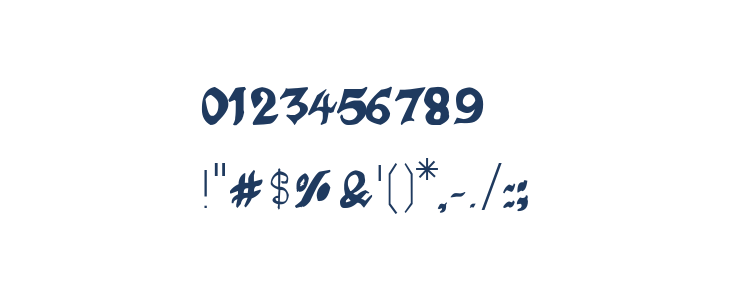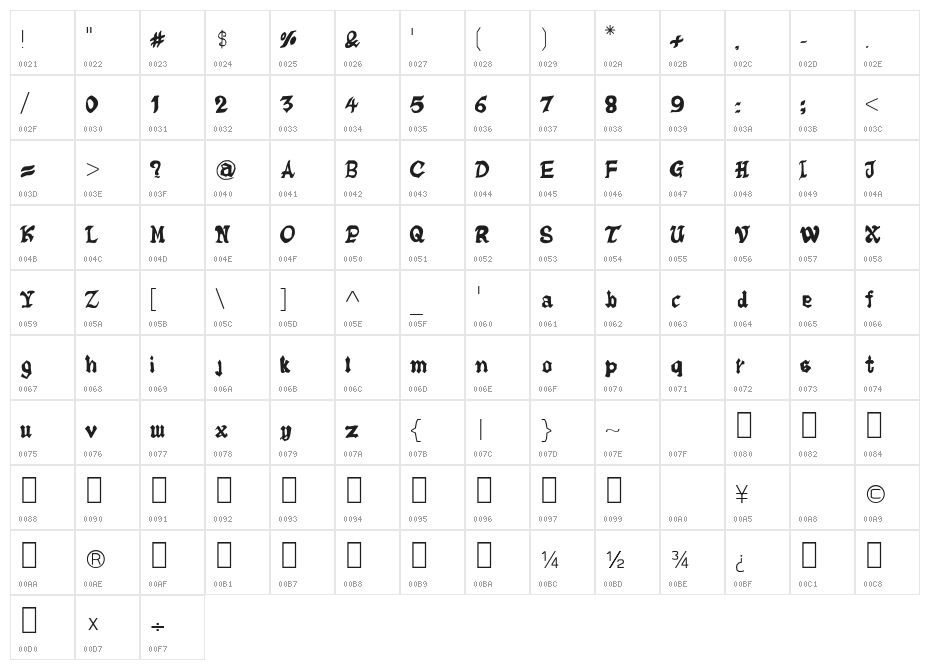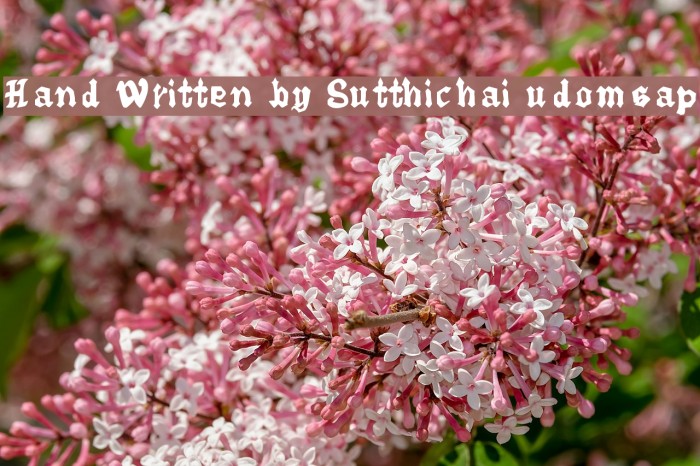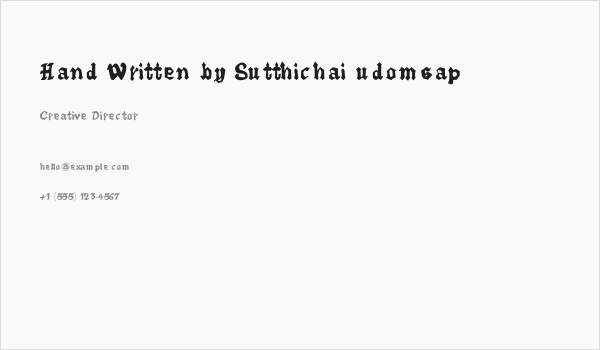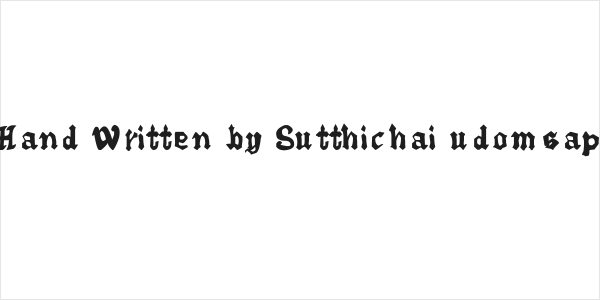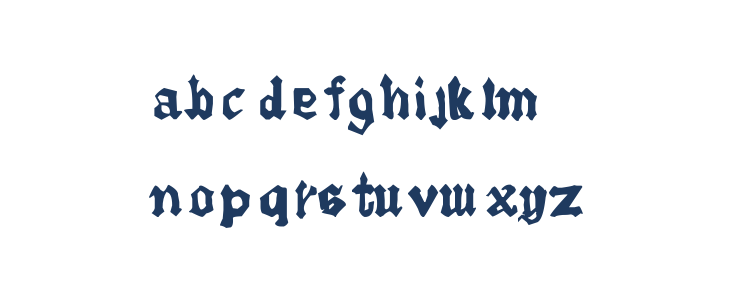
Hand Written by Sutthichai udomsap Font
Hand Written by Sutthichai udomsap Description
This font exhibits a bold and dramatic style, reminiscent of traditional calligraphy with a modern twist. The characters are sharply defined with angular edges and a distinct flair, giving it a unique and eye-catching appearance. The uppercase letters are particularly striking, with a strong presence that commands attention. The lowercase letters maintain the same boldness, ensuring consistency throughout the typeface. Numbers and special characters are designed with the same attention to detail, making them easily recognizable and harmonious with the rest of the font. The overall design suggests a sense of tradition and elegance, while still being suitable for contemporary applications.